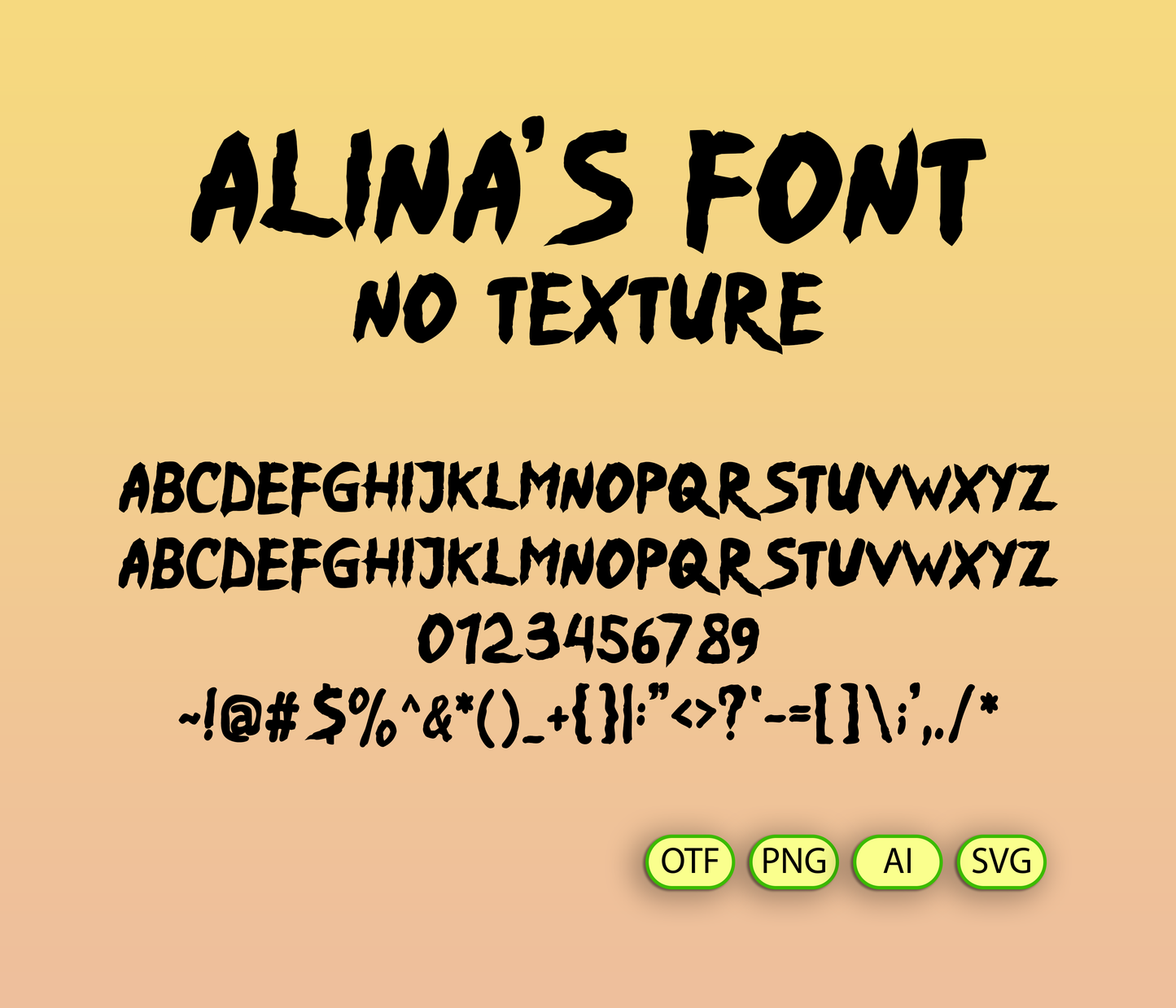
Hidden Leaf Ninja Font
Step into the mystical world of shinobi with our specially designed font, capturing the essence of ancient ninja traditions and powerful jutsu. Perfect for fans, manga creators, event organizers, and designers, this font brings the dynamic, energetic spirit of the ninja way to your projects. Create event invitations, themed merchandise, or digital content with the powerful energy of these legendary warriors.
Our Hidden Leaf font features bold, dynamic characters reflecting the powerful nature of ninja techniques. Ideal for:
Our font pays tribute to the legendary ninja saga, empowering your designs with its powerful and dynamic spirit. Whether crafting promotional materials, designing merchandise, or adding a ninja touch to personal projects, this font communicates the powerful essence of the shinobi world. Ready to inject some ninja power into your creations? This font is your key to dynamic, impactful design.